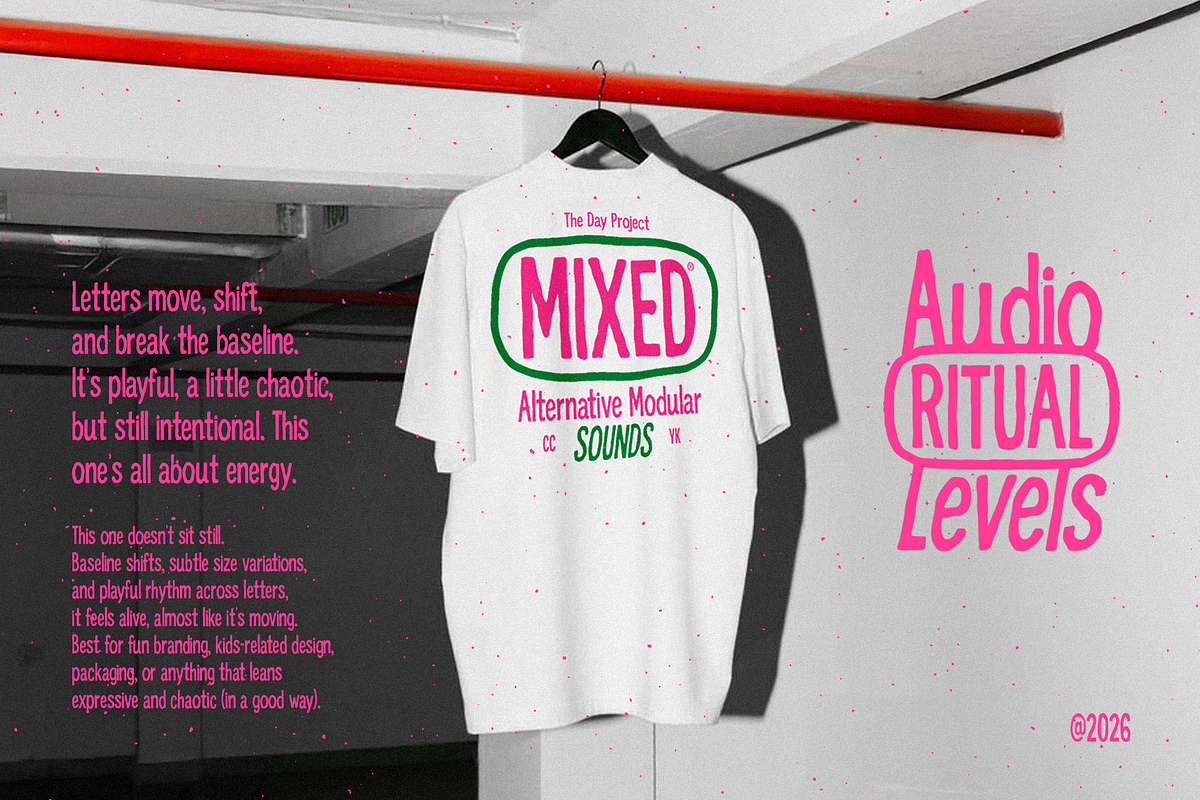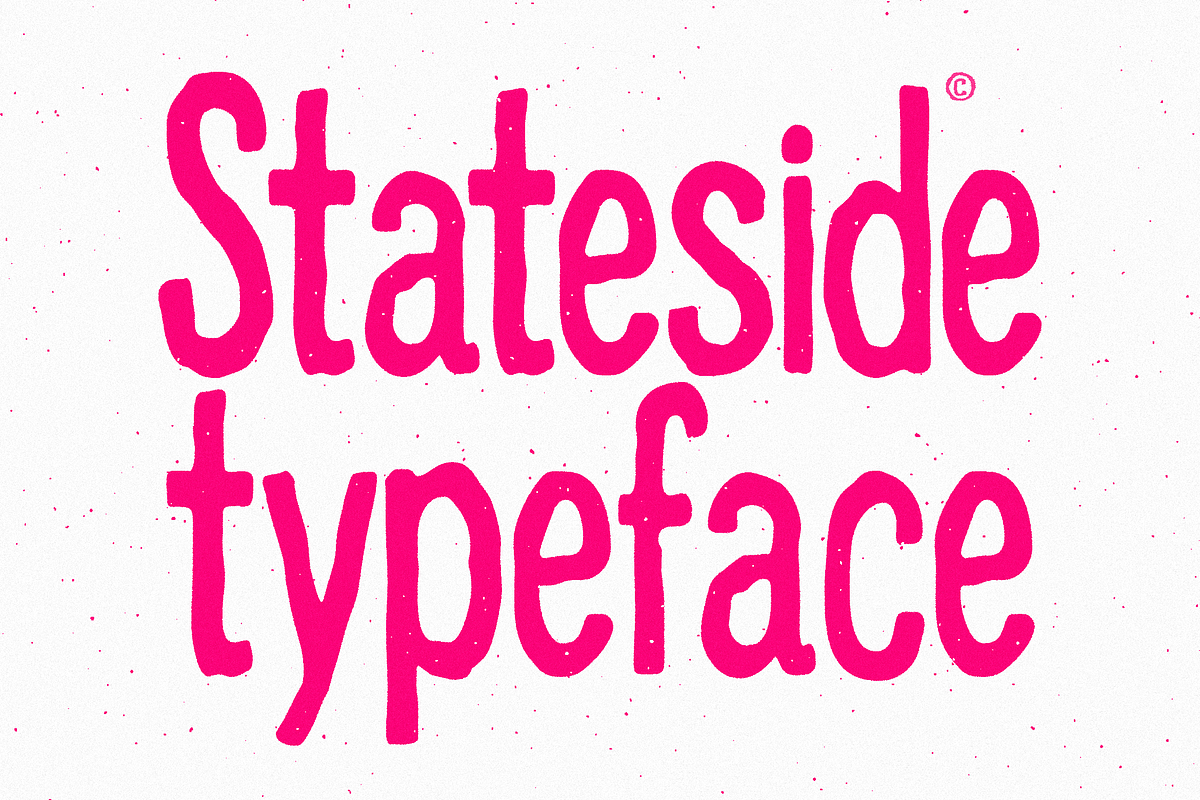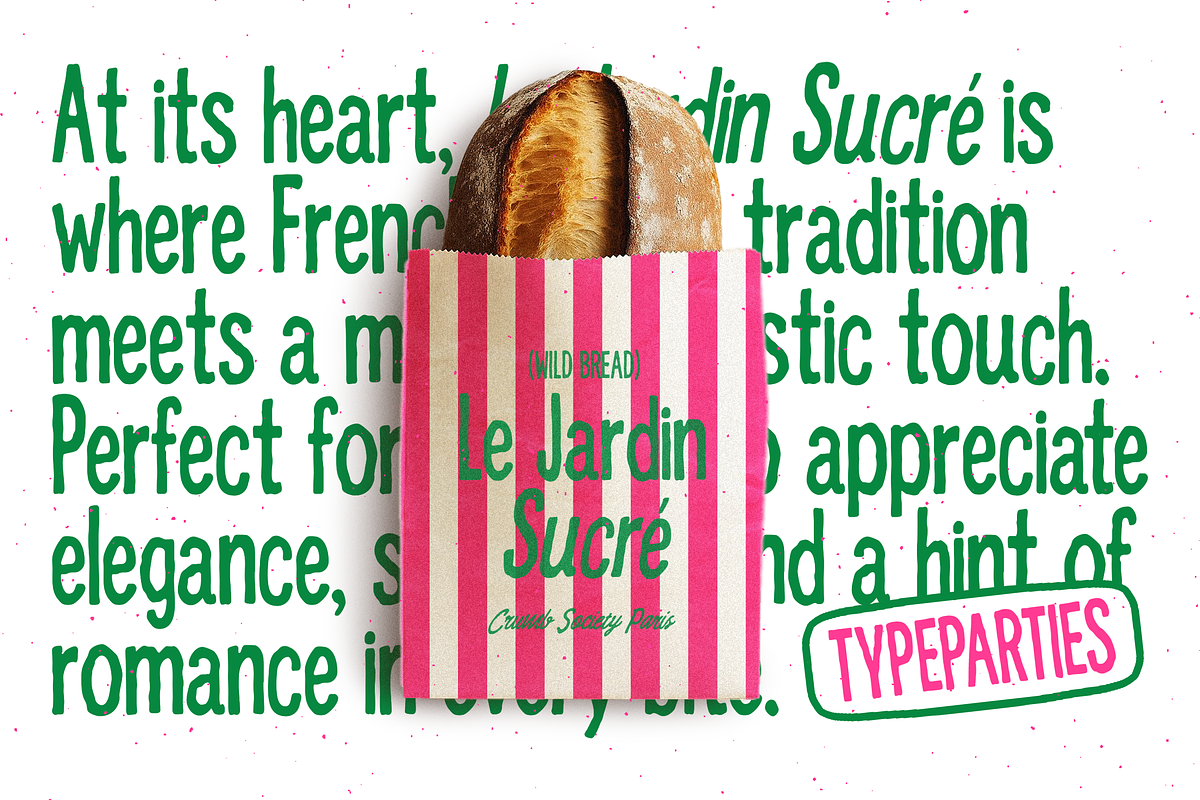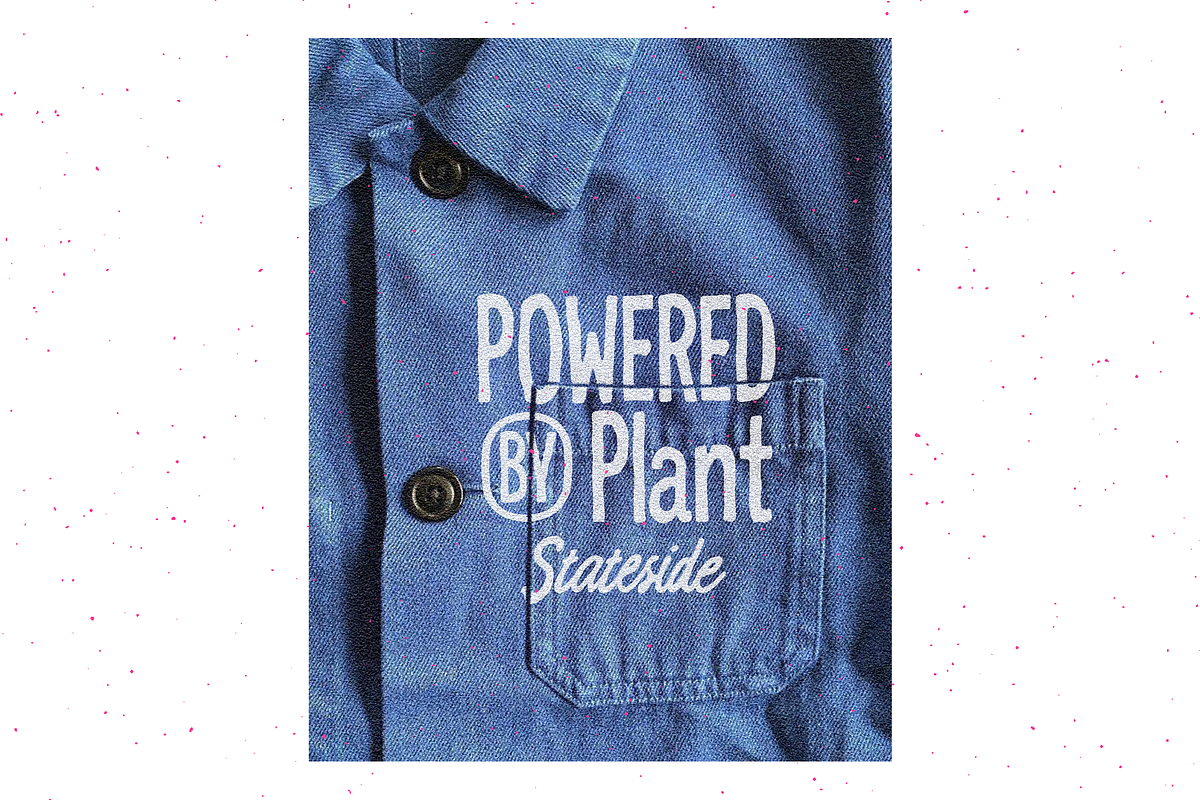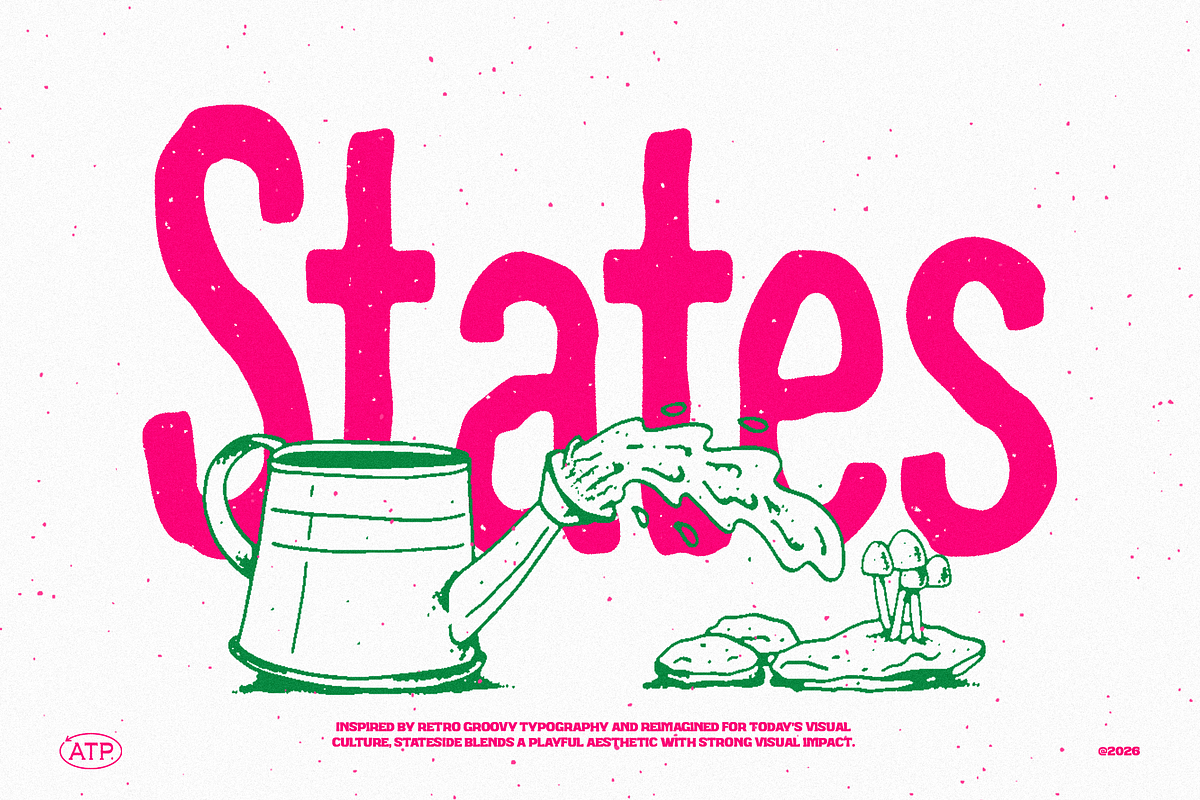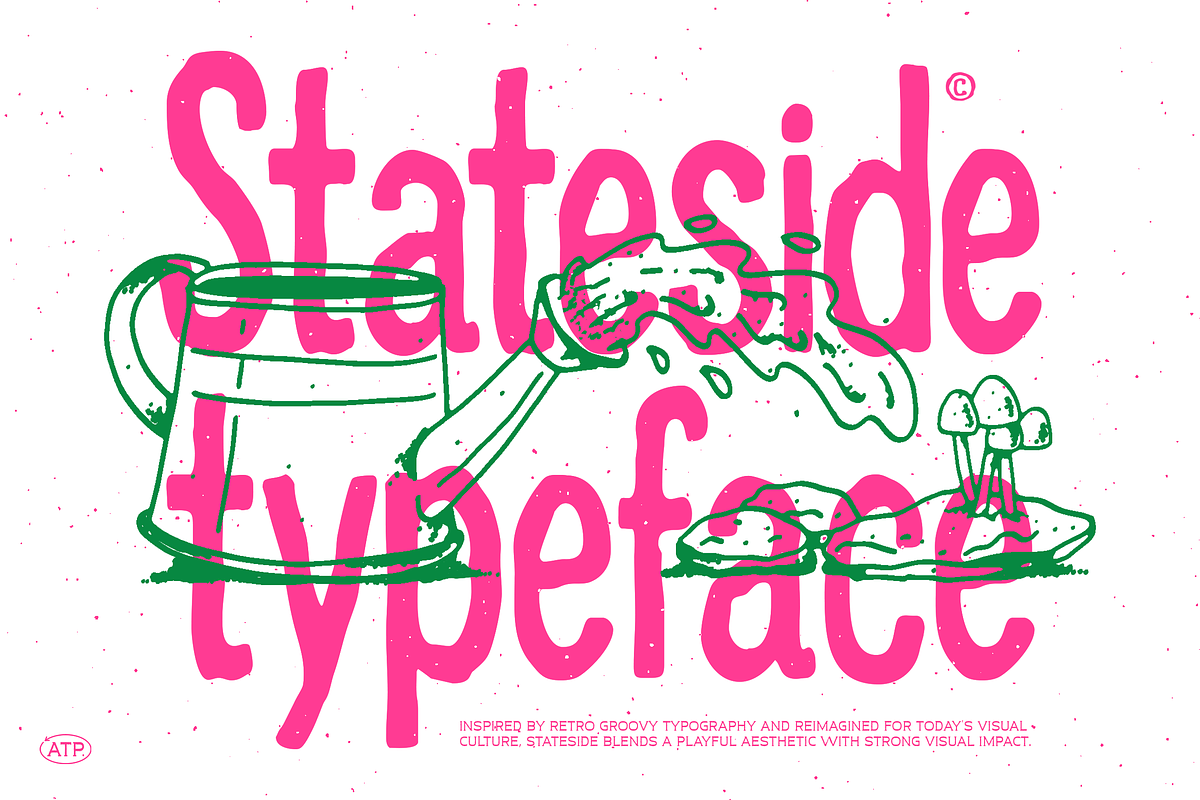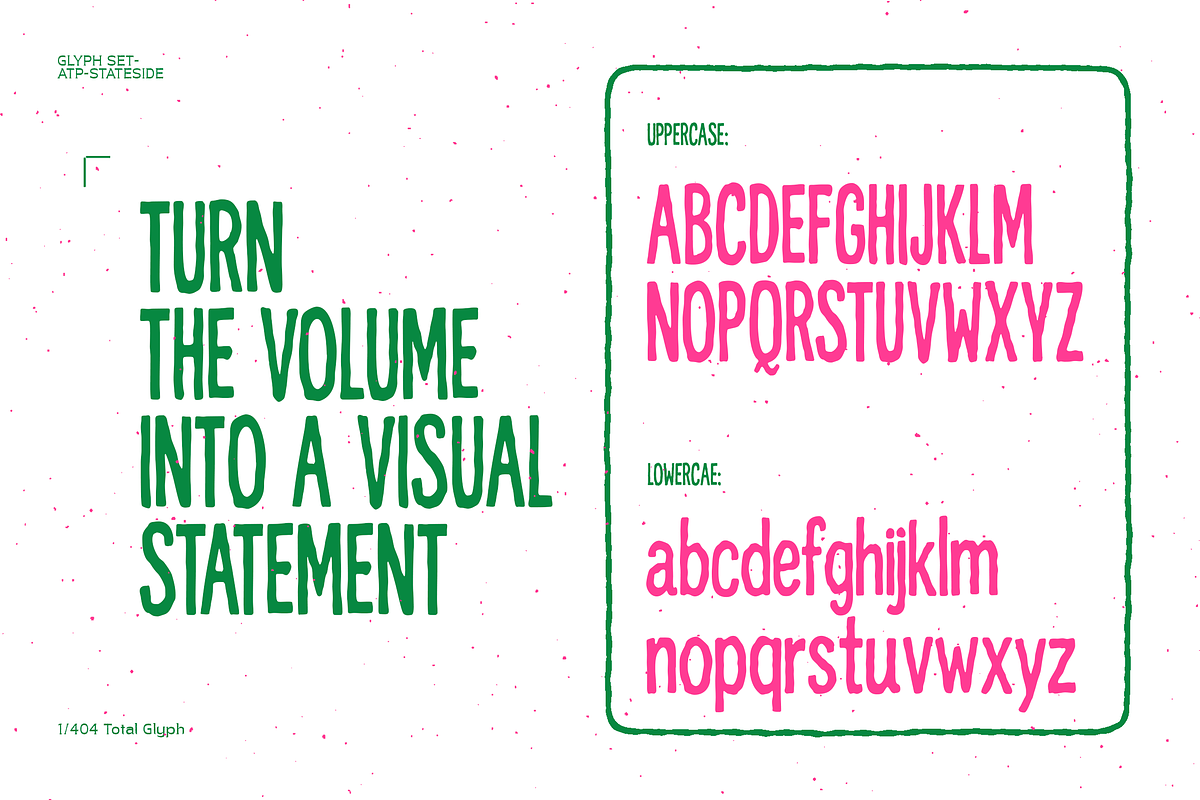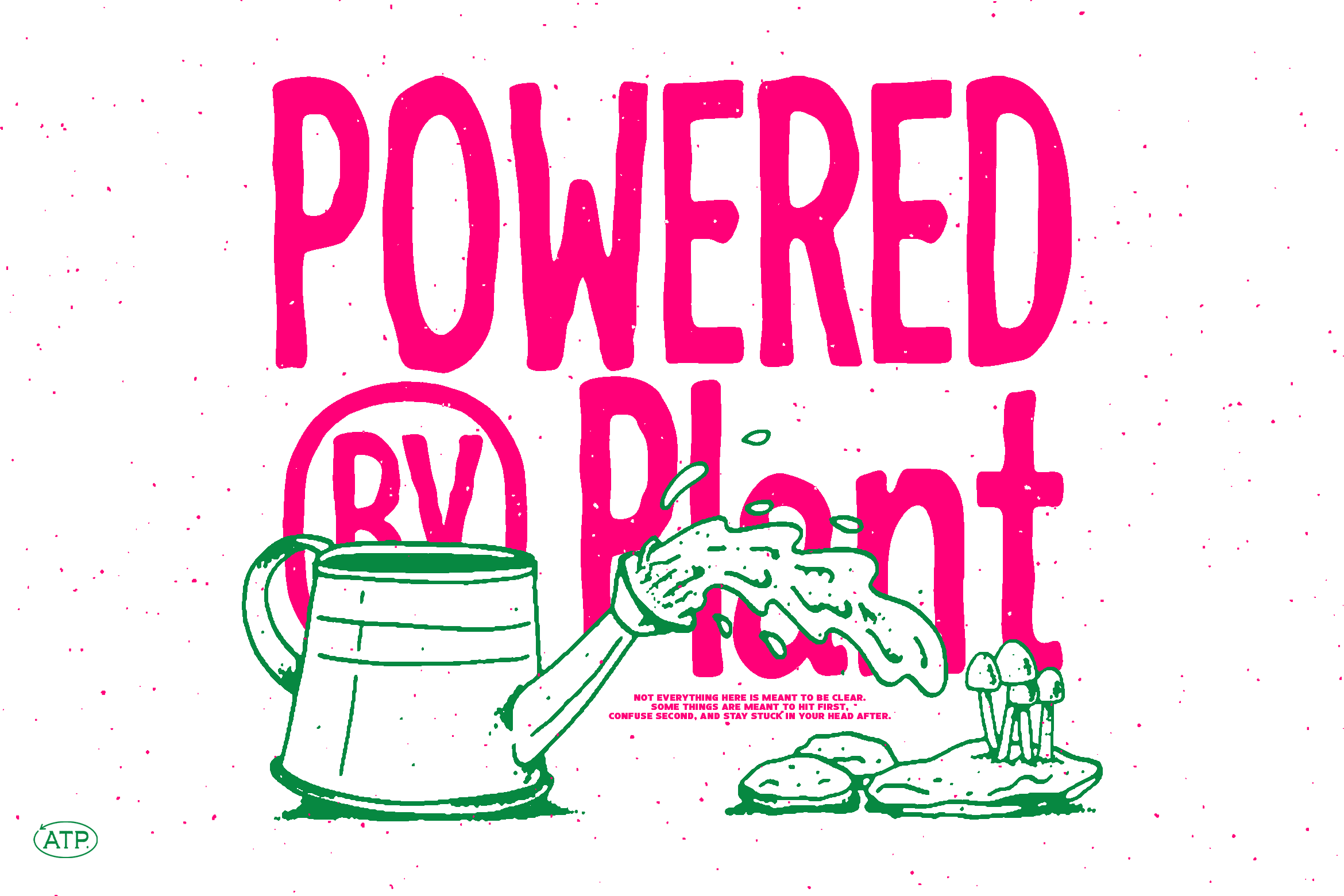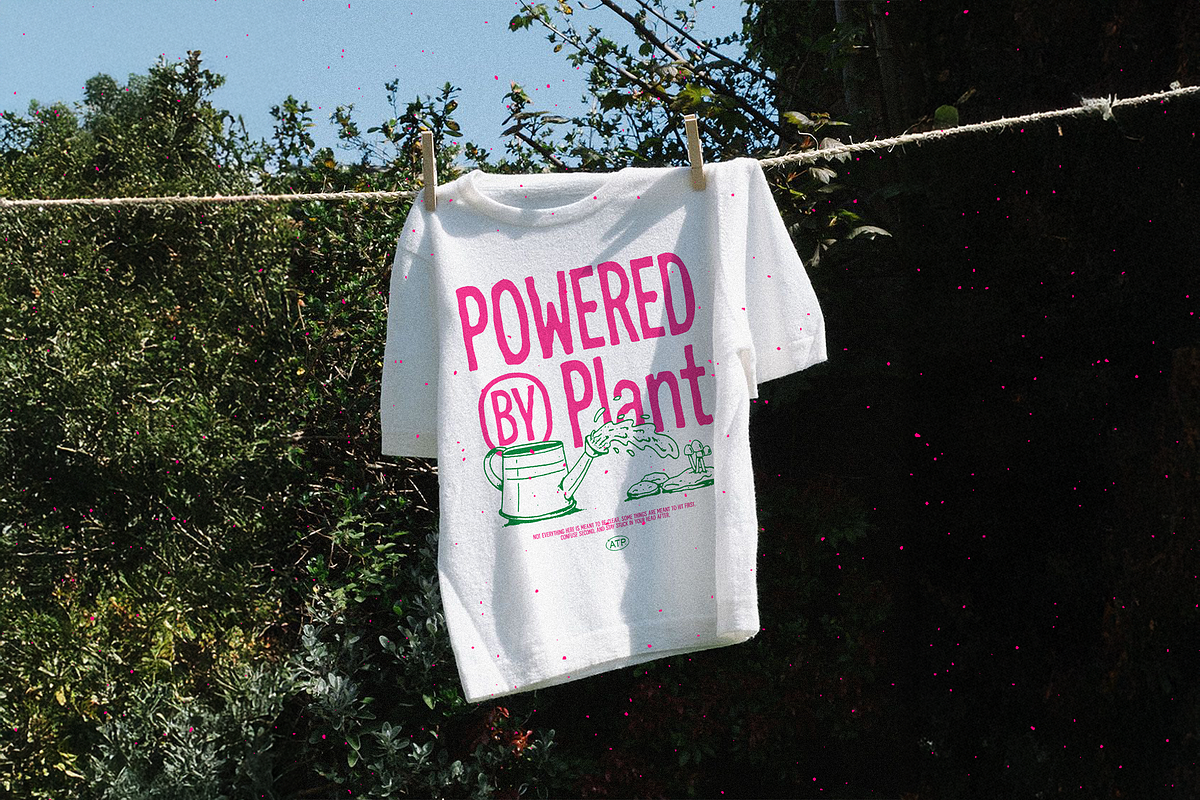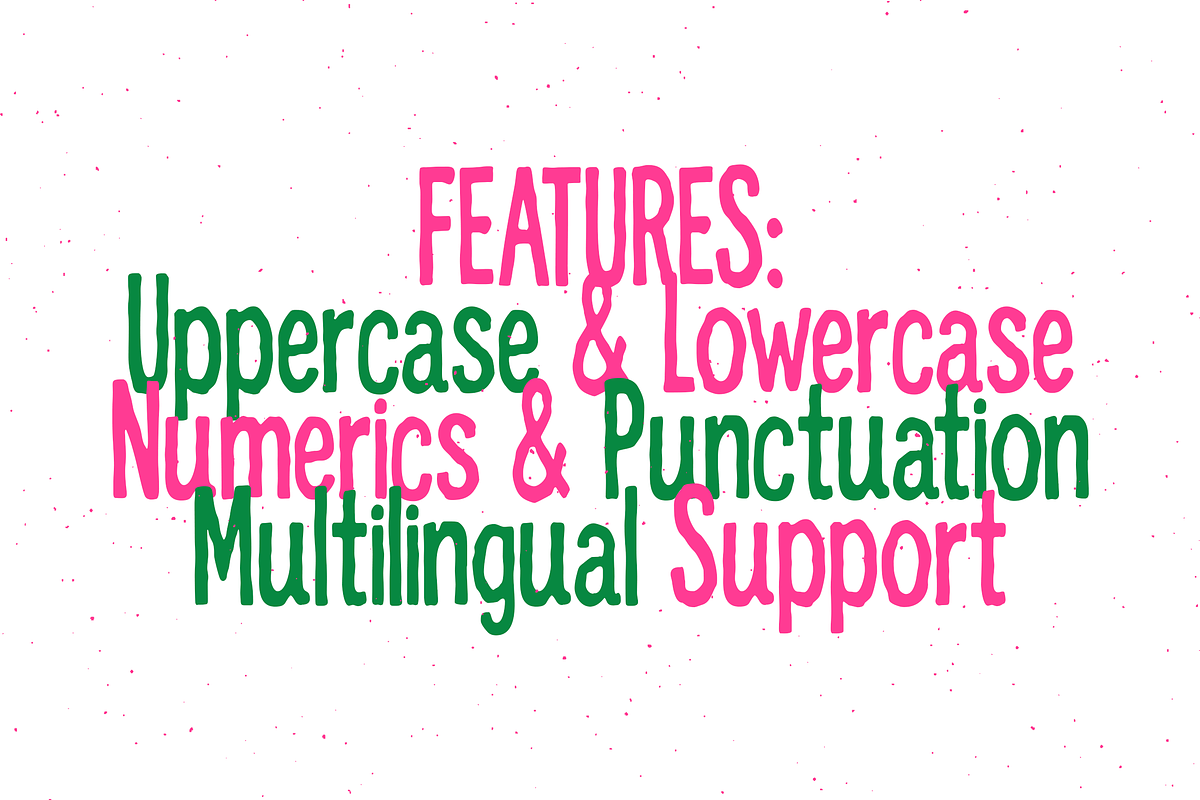
Stateside - Retro Groovy Font
This is a hand-driven, high-impact display typeface that lives somewhere between naive lettering and controlled chaos. Every curve carries a human pulse. Every stroke refuses to be perfectly geometric. It leans into imperfection on purpose, giving it that raw, almost stubborn personality that polished fonts usually try to hide. The forms are soft, rounded, and slightly swollen, but not in a cute or predictable way. There’s tension in the shapes. The terminals feel blunt yet alive. The vertical rhythm isn’t rigid, and that’s exactly where the charm hits. It creates a visual cadence that feels spoken rather than typeset.
The proportions are slightly condensed but elastic. Some characters stretch, others compress, creating a natural inconsistency that makes words feel like they’re moving. It’s expressive without trying too hard. Loud, but not screaming. Confident in a way that doesn’t ask for approval.
This isn’t about readability in long paragraphs. This is about presence. About grabbing space and owning it. We made this for designers who are tired of neutrality. For work that needs a voice, not just a font.